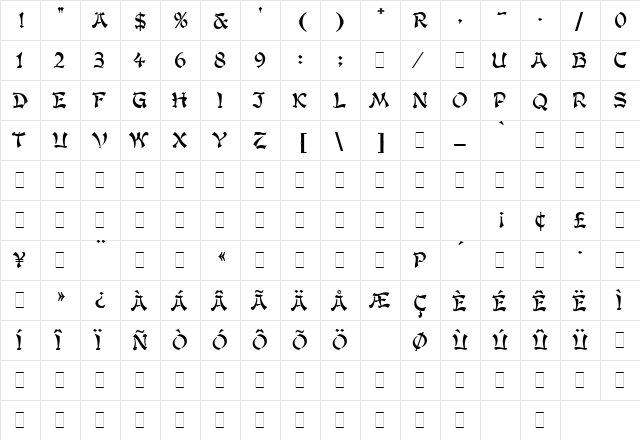
Kanban LET Plain
Design Context for Kanban LET Typeface
Kanban LET is a composed and adaptable typeface that performs quietly and consistently across a wide range of design contexts.